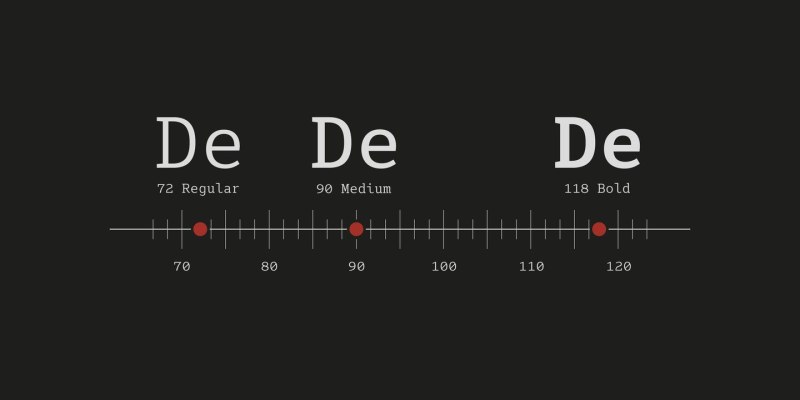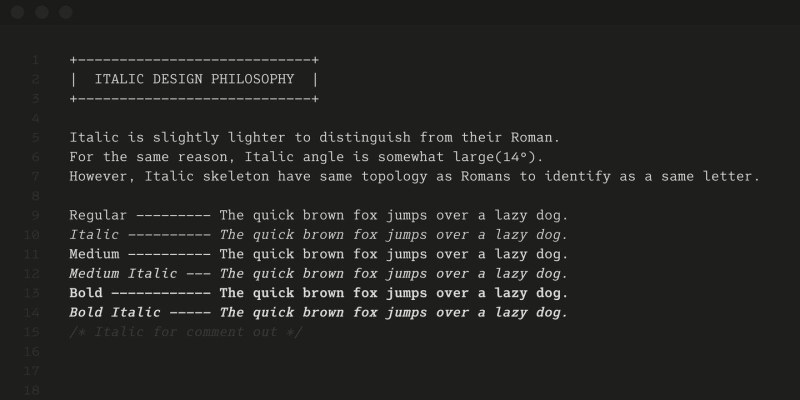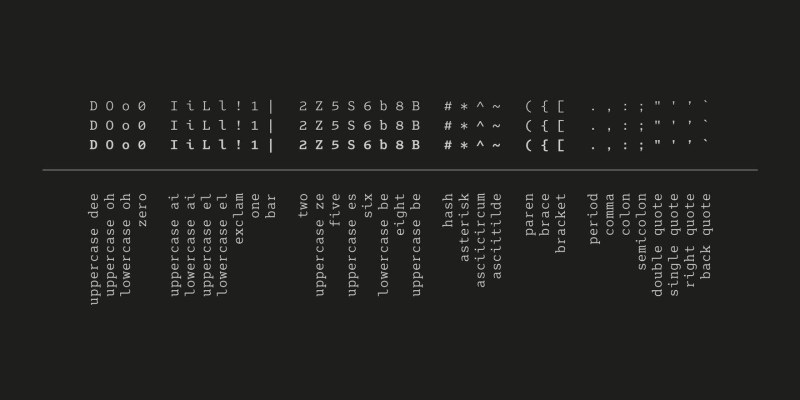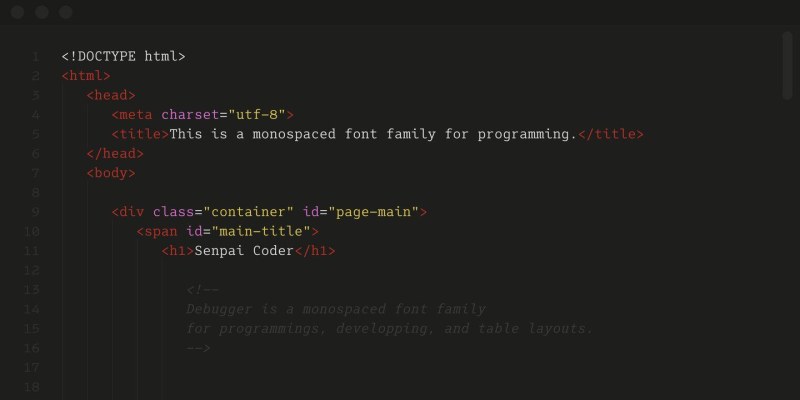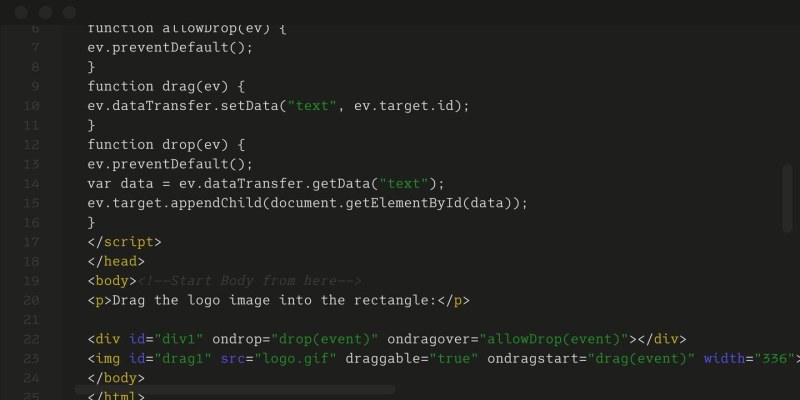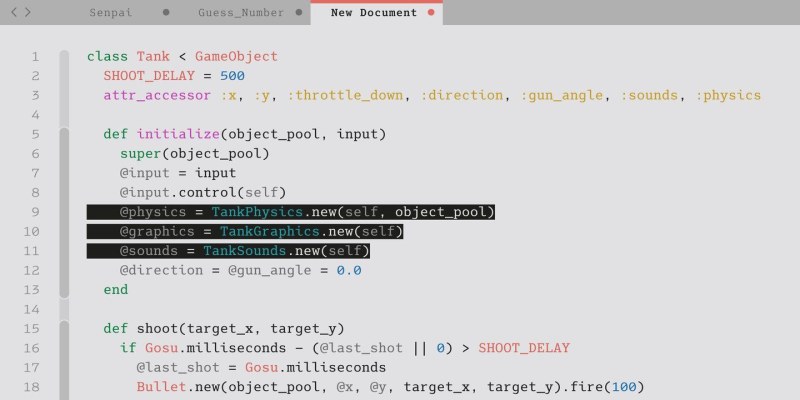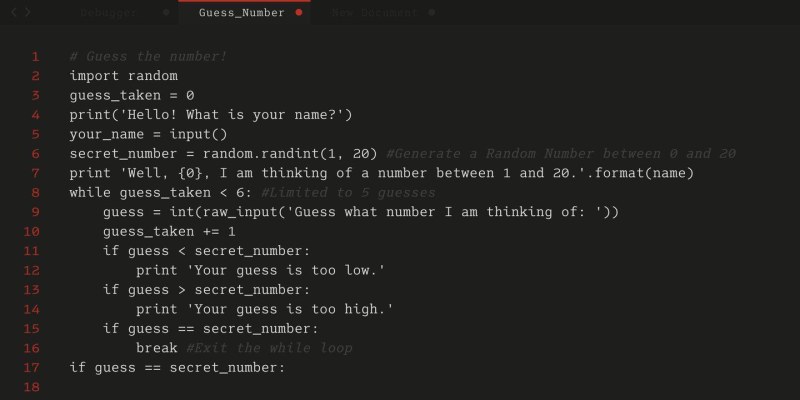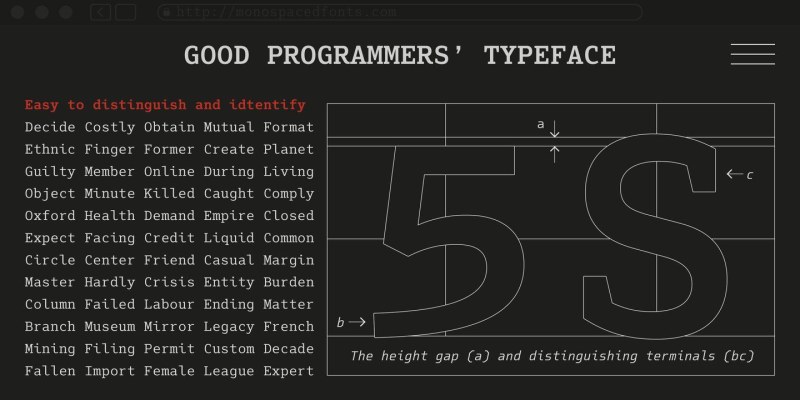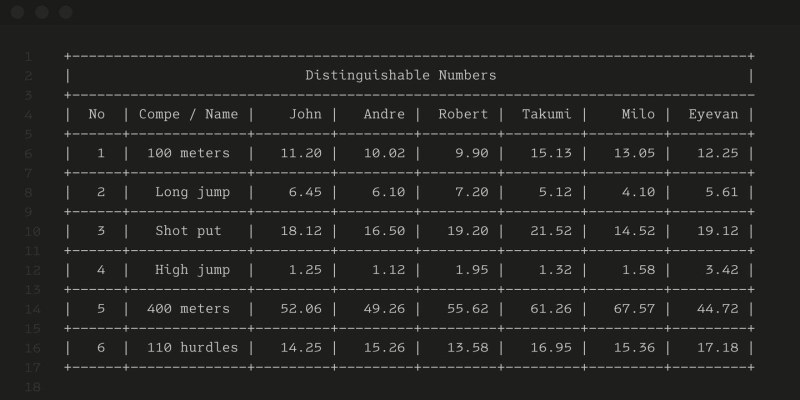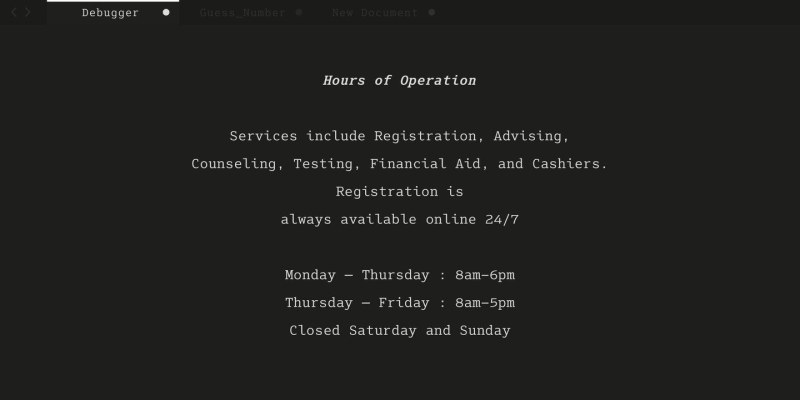
Senpai Coder Font Family
Senpai Coder is a family of typewriter-style monospaced font for developing, programming, coding, and table layout. Senpai Coder has very distinguishing letterforms for confusable letters such as Zero&Oh, One&I, and Two&Z. A lot of ingenuity makes this family very distinguishable. Italics have somewhat large inclination angle to be distinguished from their Roman. For the same reason, Italics are slightly lighter than Romans. Italic is not cursive Italic. It is near the slanted Roman.
This is an intentional design to identify Italic letters. Cursive is not suitable for programming font. Typewriter letterform (serif) is good for reading. Common elements for each letterform makes harmony and a sense of unity. Senpai Coder supports almost all Latin languages. Try this all-new experiment.
Senpai Coder Font Family is a Font Family font that brings a professional and versatile look to your projects. Senpai Coder is a family of typewriter-style monospaced font for developing, programming, coding, and table layout.